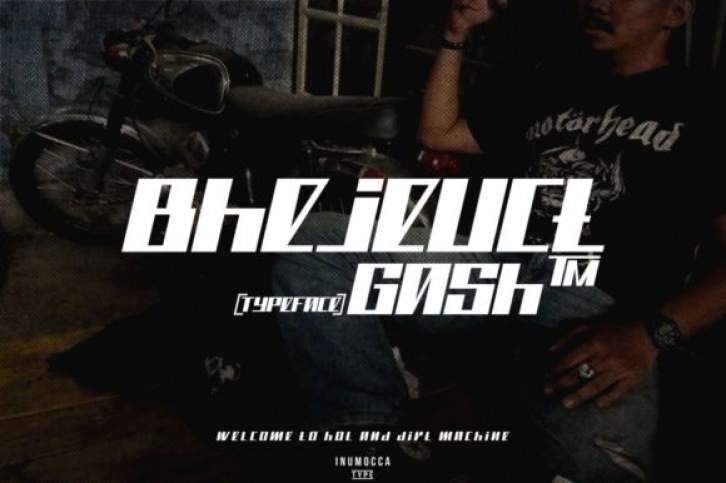
Bhejeuct Gash is a bold, thick lettered and futuristic display font. It looks incredibly adept for rally or sporting designs. Add it confidently to your projects, and you won’t be disappointed.